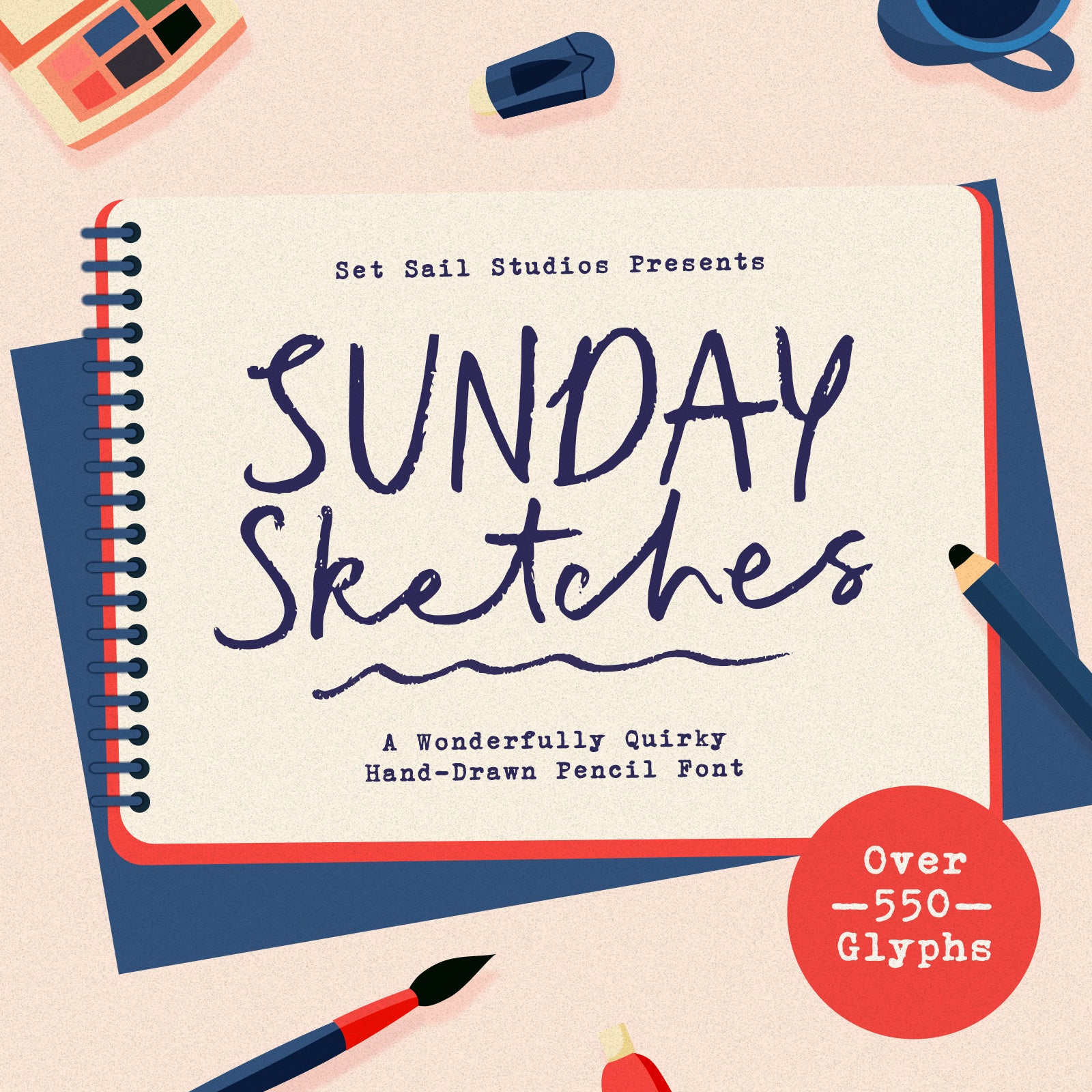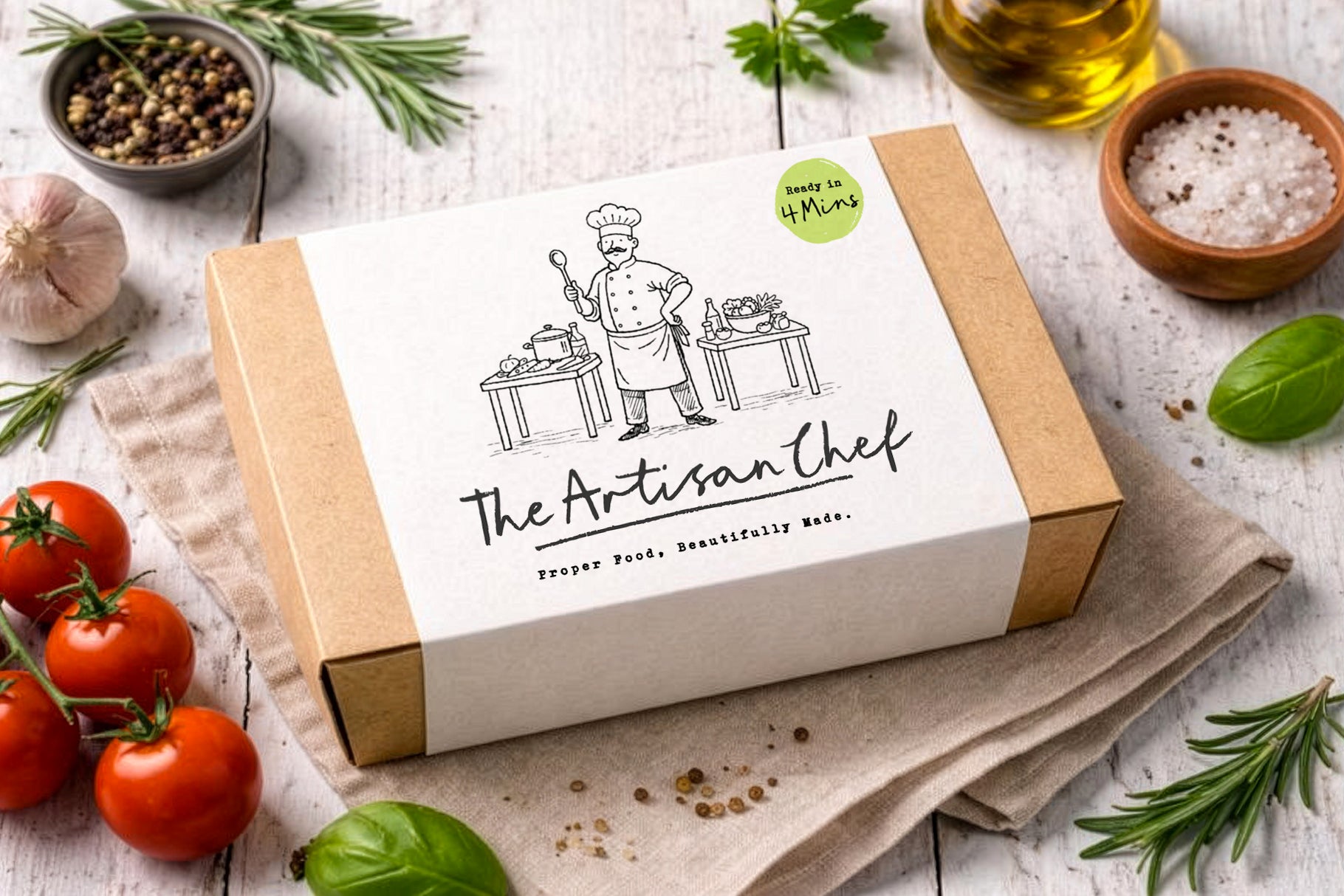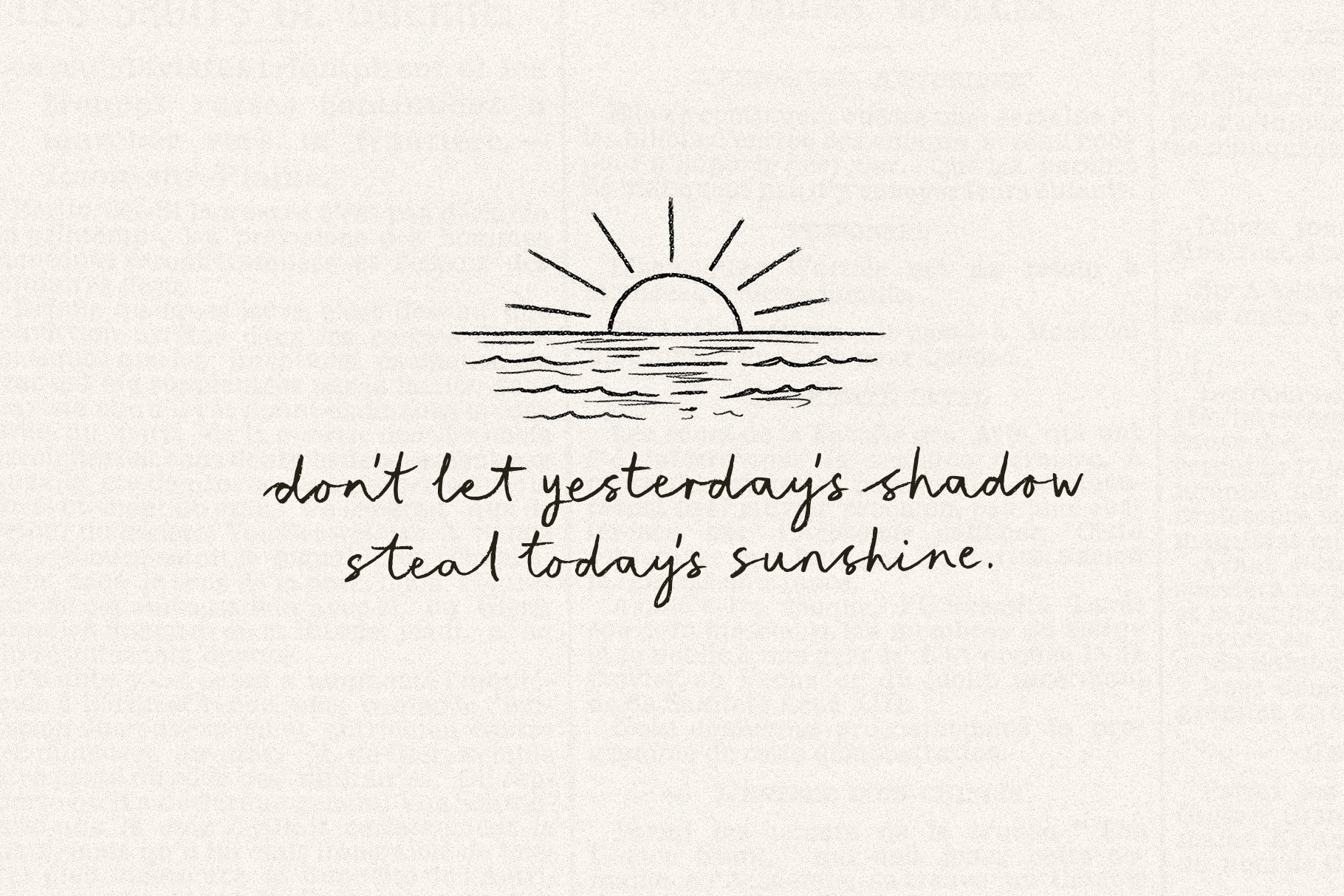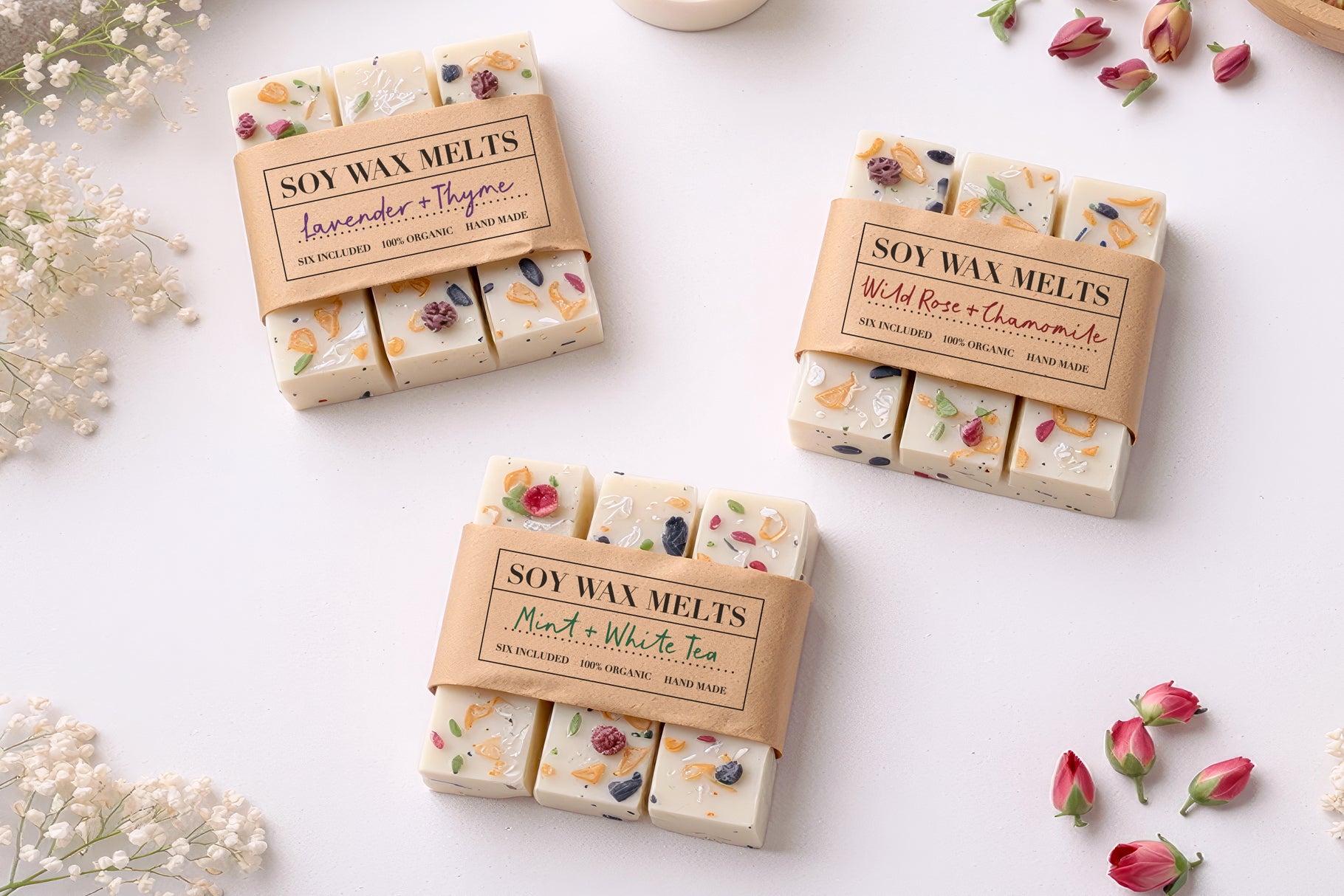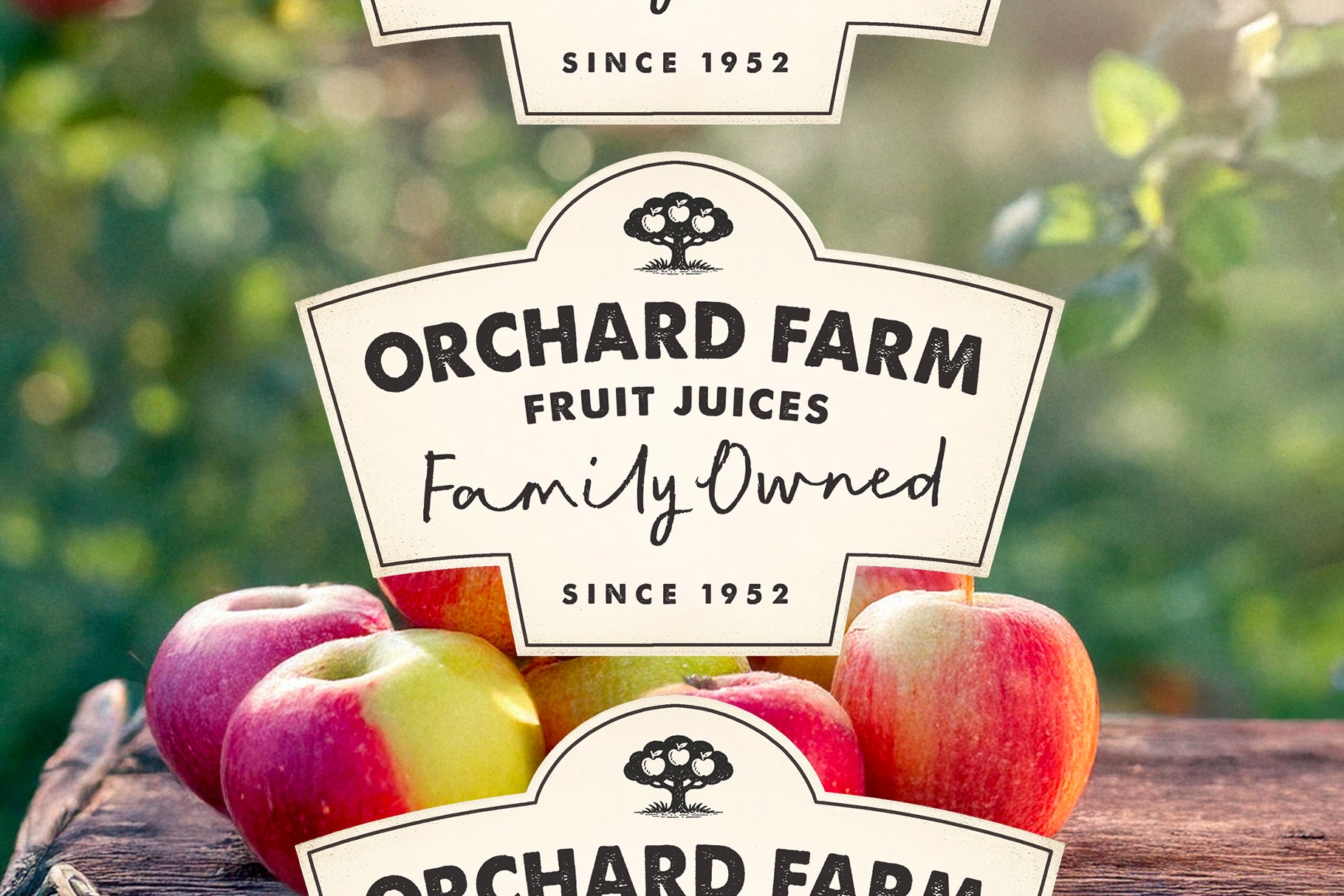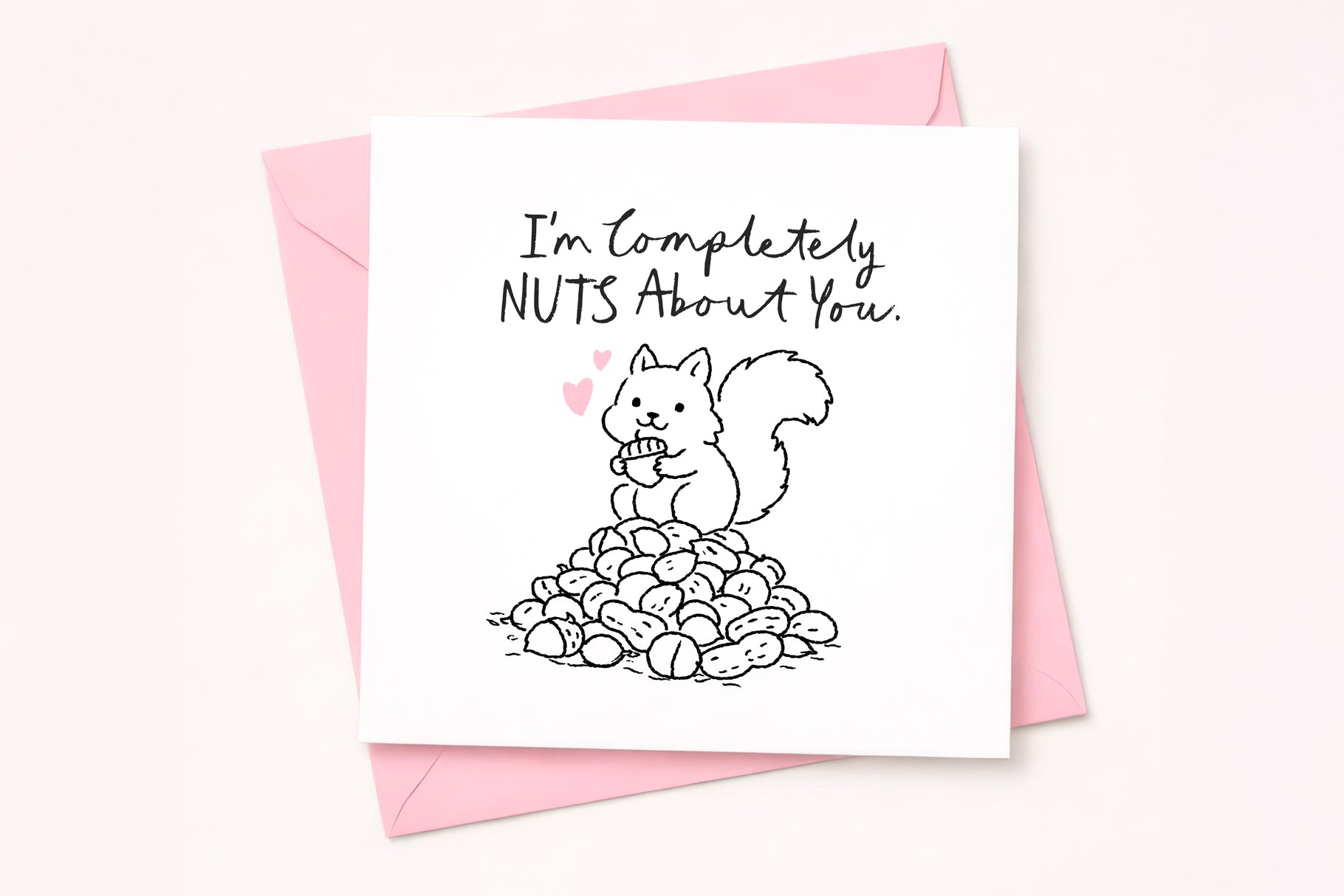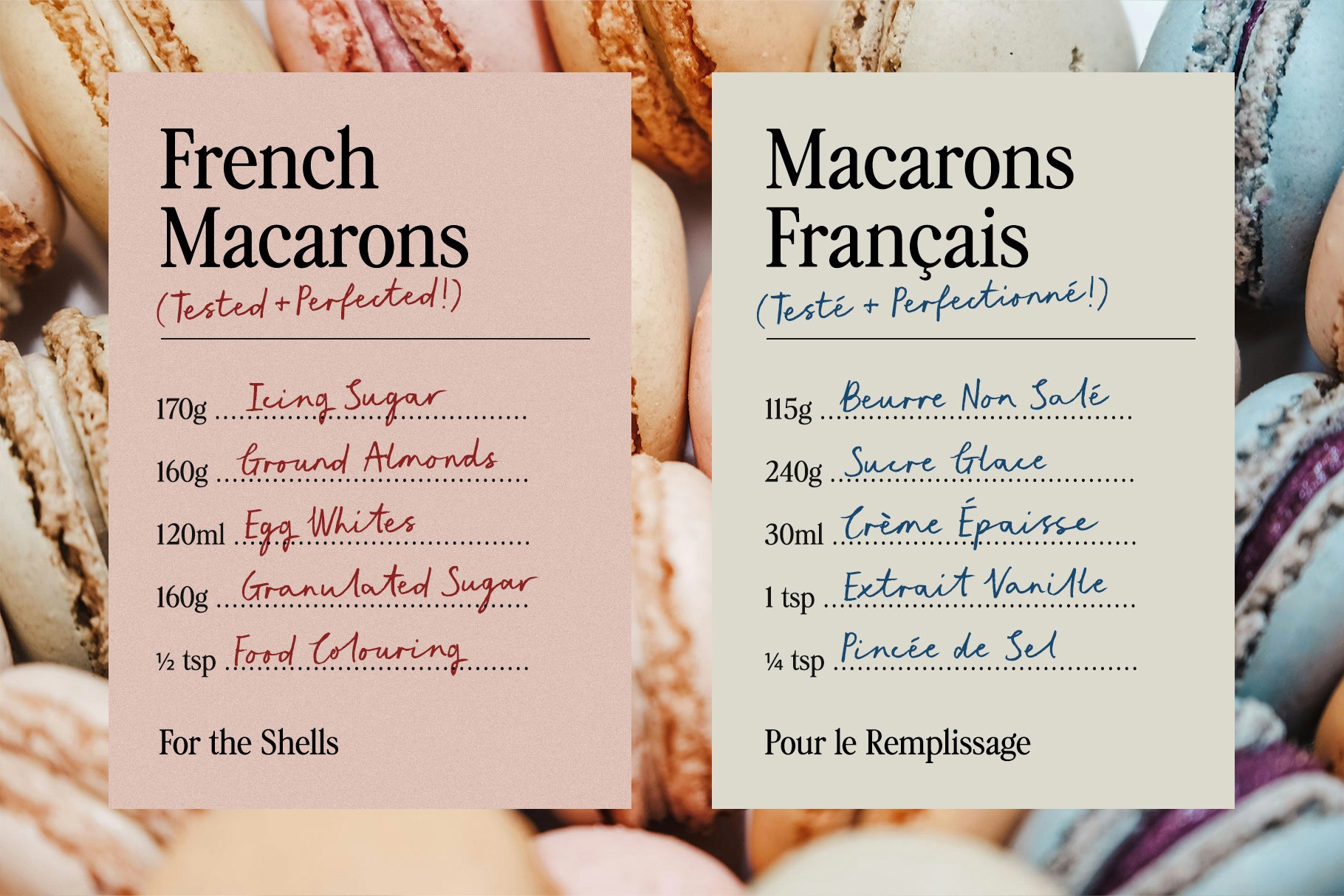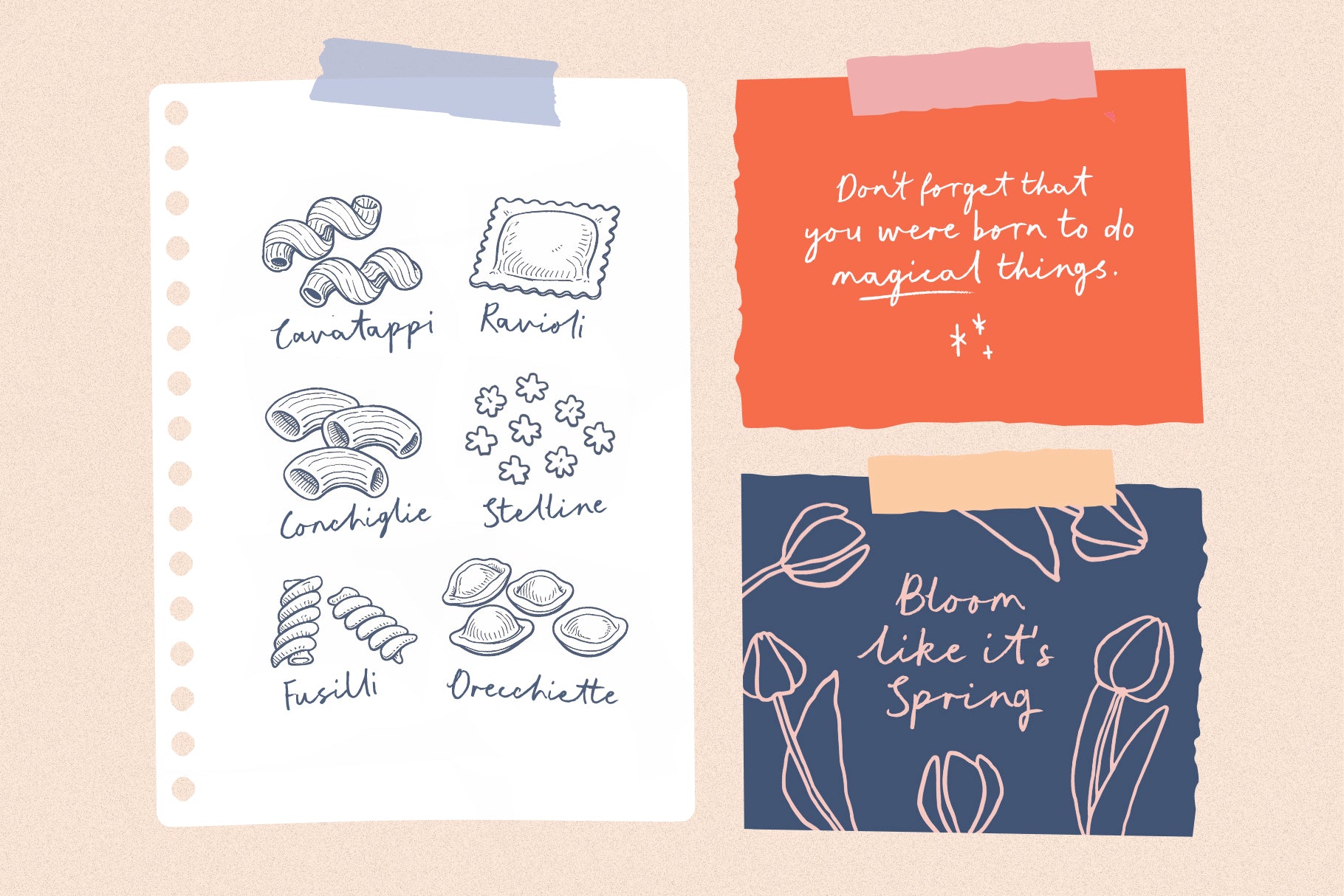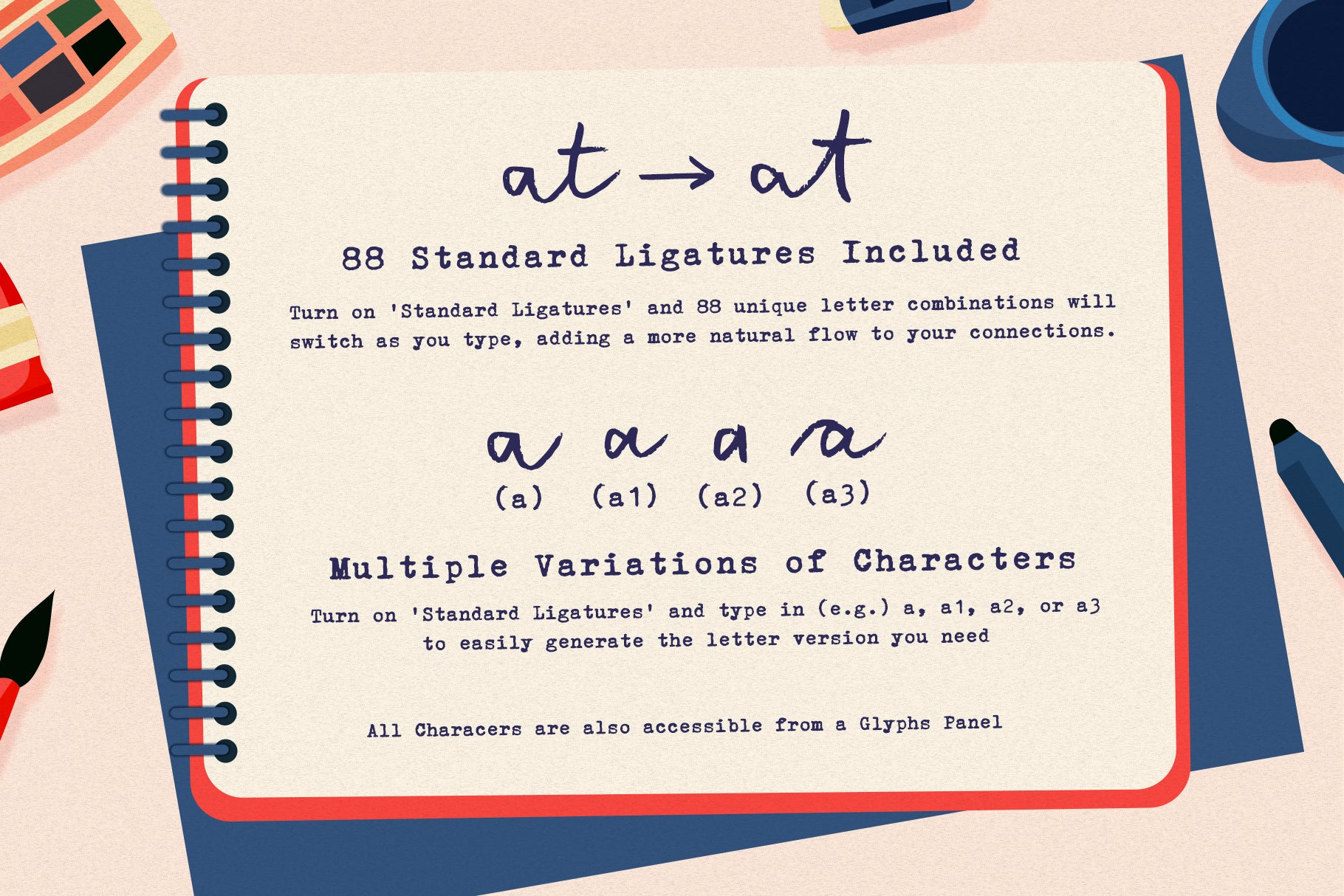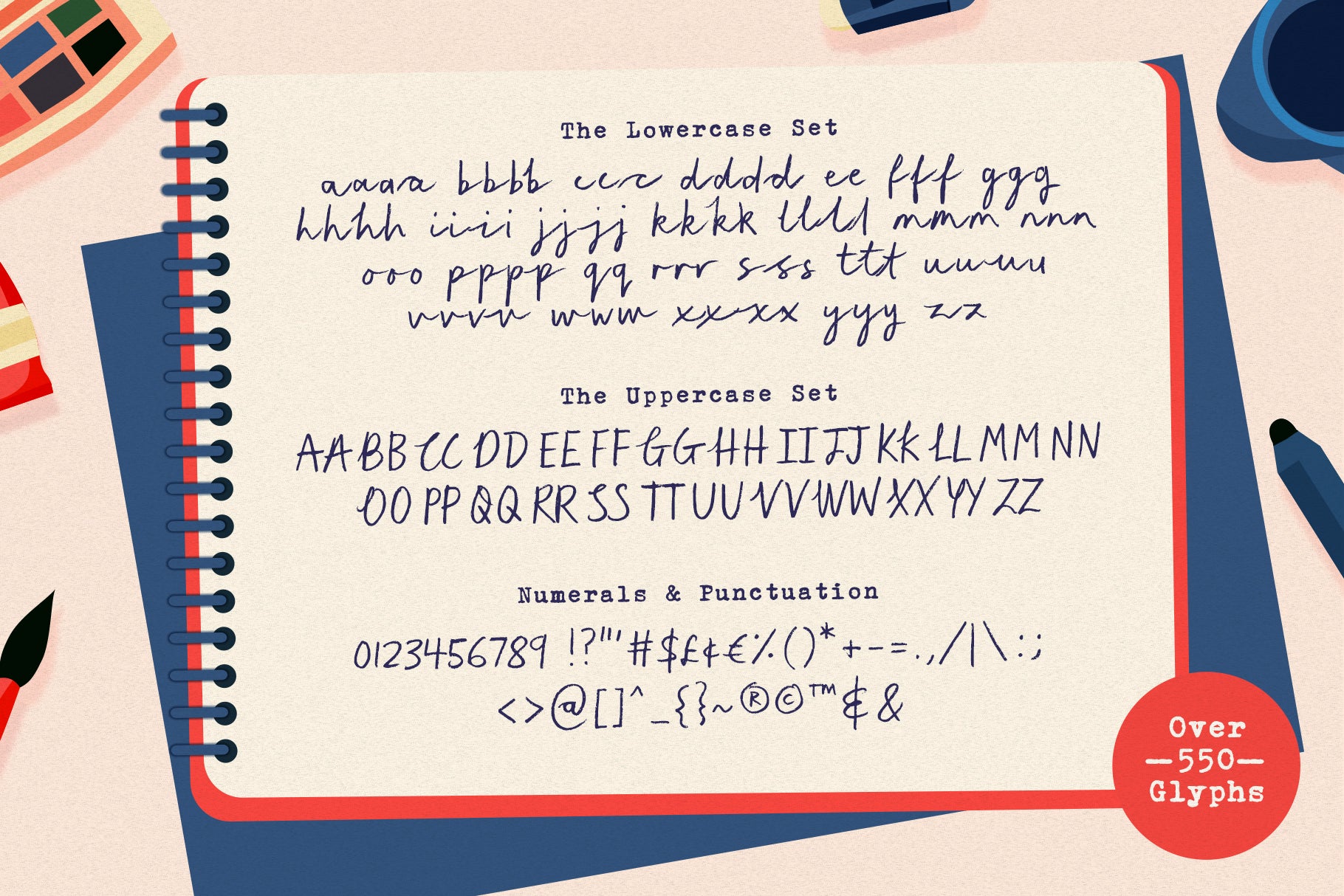
Sunday Sketches Handwritten Font
Looking to add some extra charm and authenticity to your work? Look no further than the Sunday Sketches Handwritten Font! Hand drawn with real pencils on paper, the human-nature of this font shines through with every imperfect stroke, realistic rough texture, and organic letter connection. Don’t let the quirky nature of this font fool you – it’s a huge set of over 550 glyphs, with one font file containing multiple variations of each letter, as well as a bonus doodle font to add even more character to your designs.
Accessing Alternate Characters • Simply turn on Standard Ligatures and type a number 1, 2, or 3 after your letter to generate each variation. For example, typing ‘a’, ‘a1’, ‘a2’, and ‘a3’ will give you 4 variations of the lowercase letter a (see images for further information).
Accessing Ligatures • Simply turn on Standard Ligatures and ligatures will automatically generate when available (see images for full list of ligatures).
Language Support • English, French, Italian, Spanish, Portuguese, German, Swedish, Norwegian, Danish, Dutch, Finnish, Indonesian, Malay, Hungarian, Polish, Croatian, Turkish, Romanian, Czech, Latvian, Lithuanian, Slovak, Slovenian.
The Sunday Sketches Handwritten Font features over 550 glyphs, including multiple variations for each letter and a bonus doodle font with 52 characters. Hand-drawn with pencils, it offers a realistic texture and organic letter connections, and is compatible with various languages and software through PUA encoding.